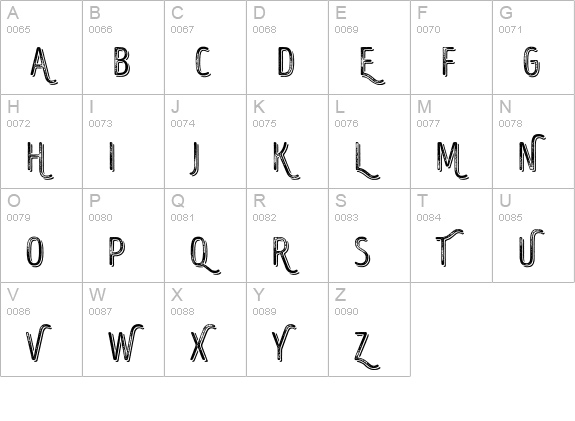
Intro Head R UC G Base Shade Font Details
The Intro Head R UC G Base Shade font is a stunning display typeface that exudes sophistication and elegance. With its unique design and intricate details, this font is sure to make a strong visual impact in any design project. The tall, uppercase letters command attention and give a sense of grandeur, making it perfect for headlines, titles, and other prominent text. What sets Intro Head R UC G Base Shade font apart is its stylish base shade effect, which adds depth and dimension to the characters, creating a striking visual contrast. The sharp edges and clean lines of this font give it a modern and sleek look, making it a versatile choice for a wide range of design applications. Best of all, the Intro Head R UC G Base Shade font is available for free download at FontsMarket.com. Whether you're working on a branding project, a poster design, or any other creative endeavor, this font is sure to elevate your work and leave a lasting impression. Don't miss out on this incredible opportunity to enhance your designs with the elegant and impactful Intro Head R UC G Base Shade font. Download it today and take your projects to the next level!